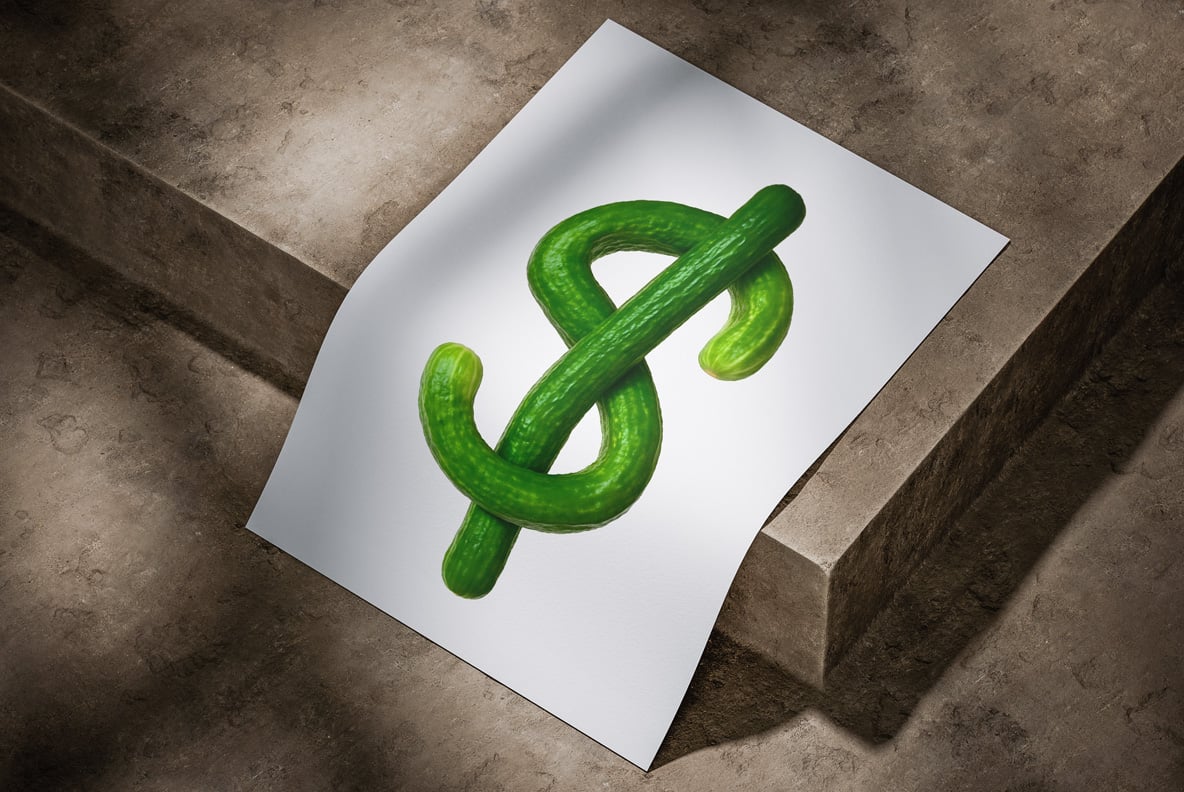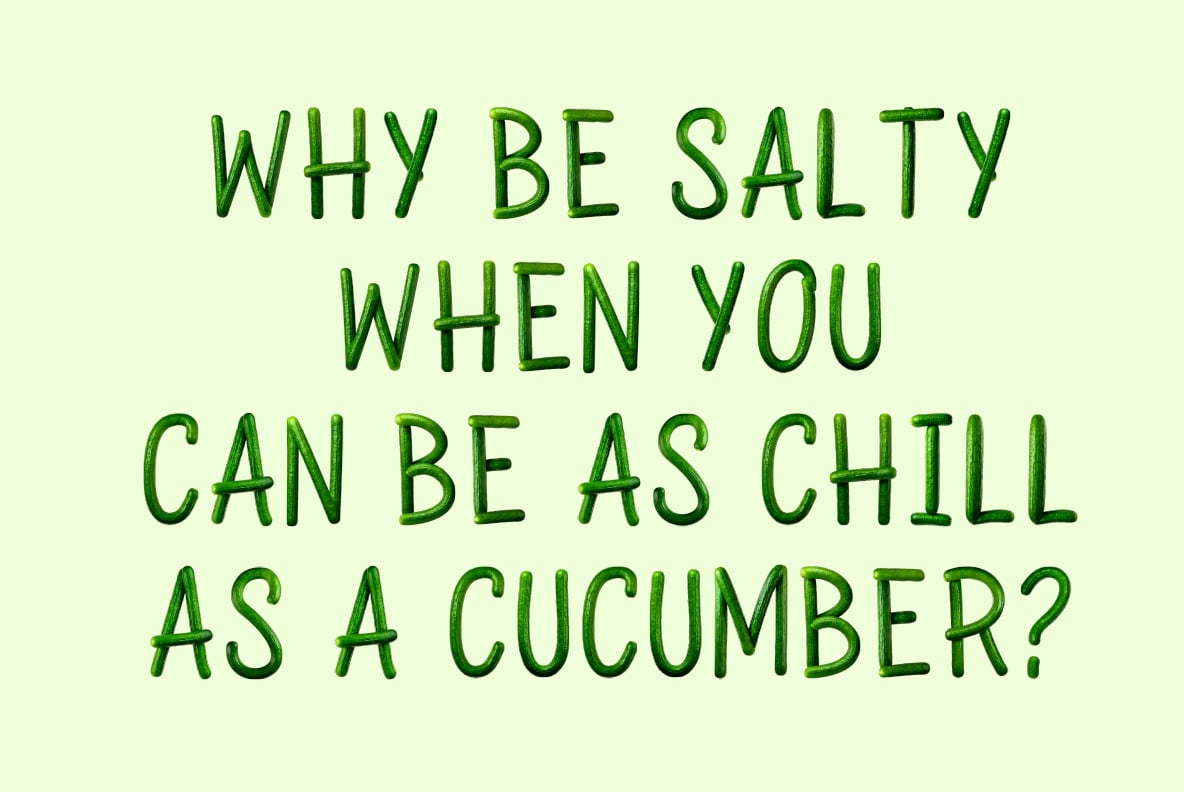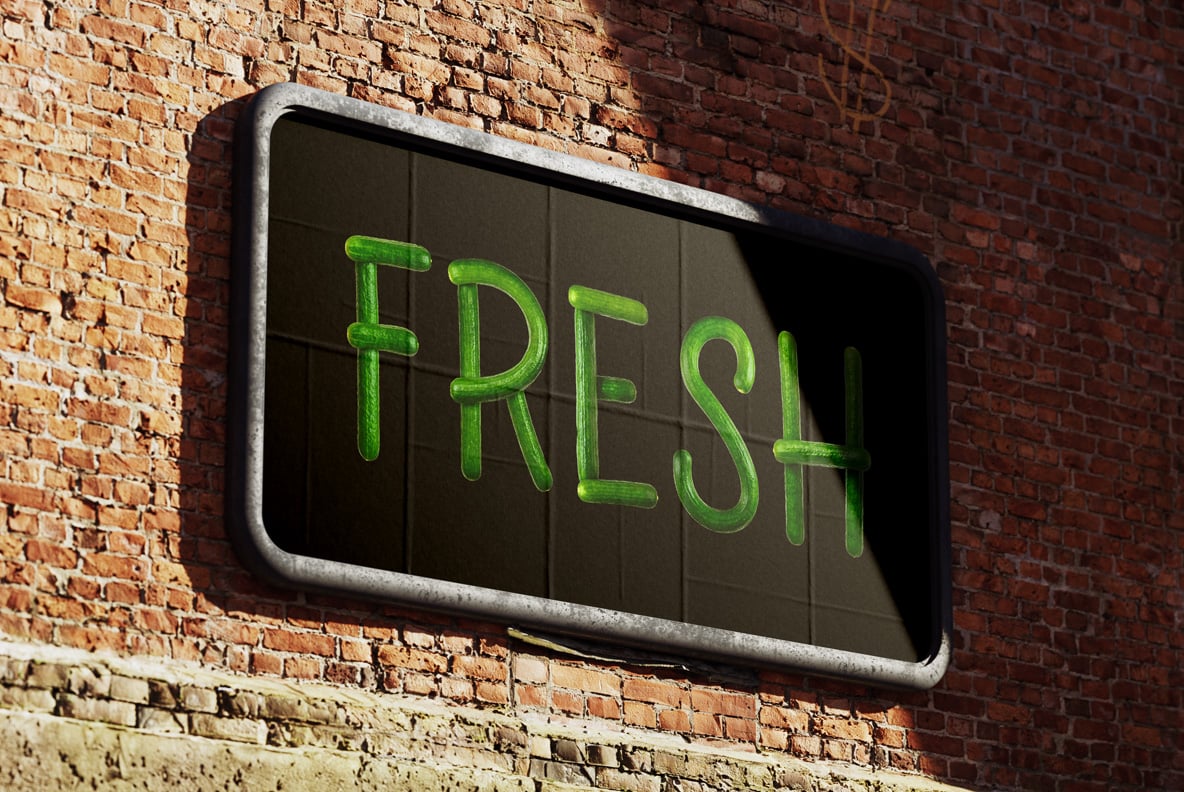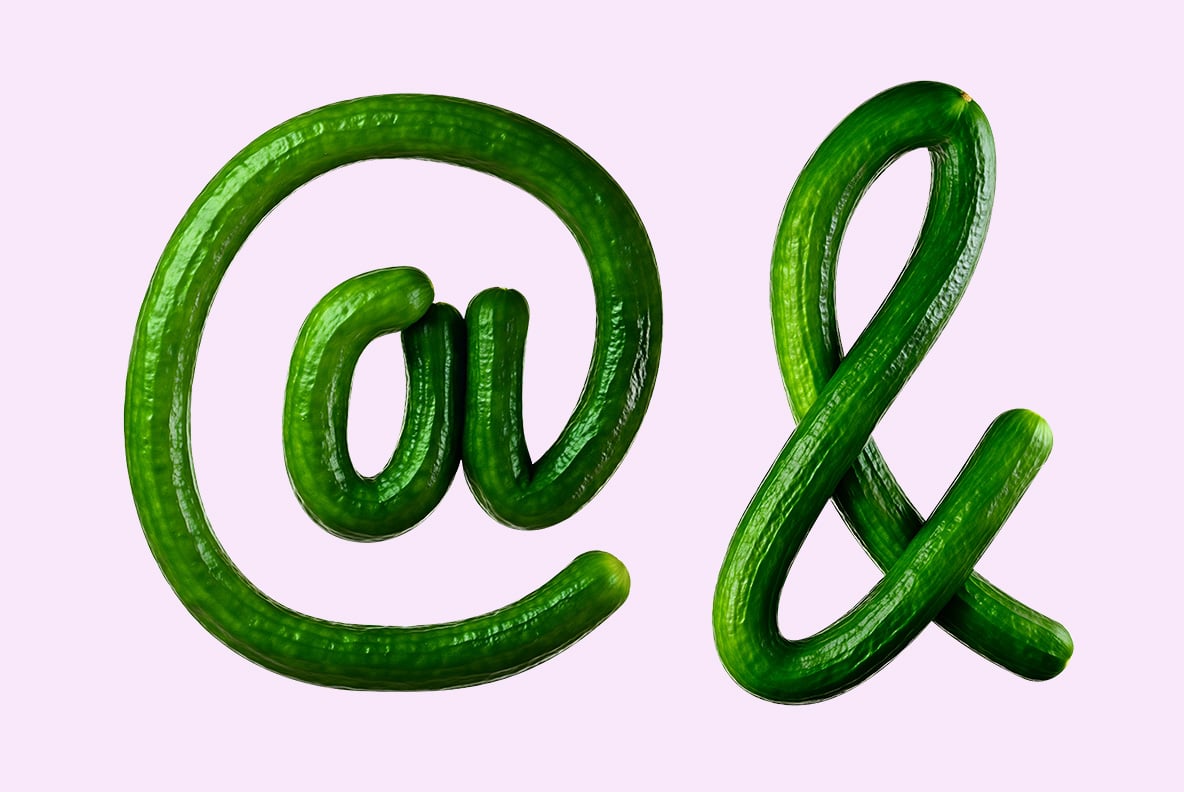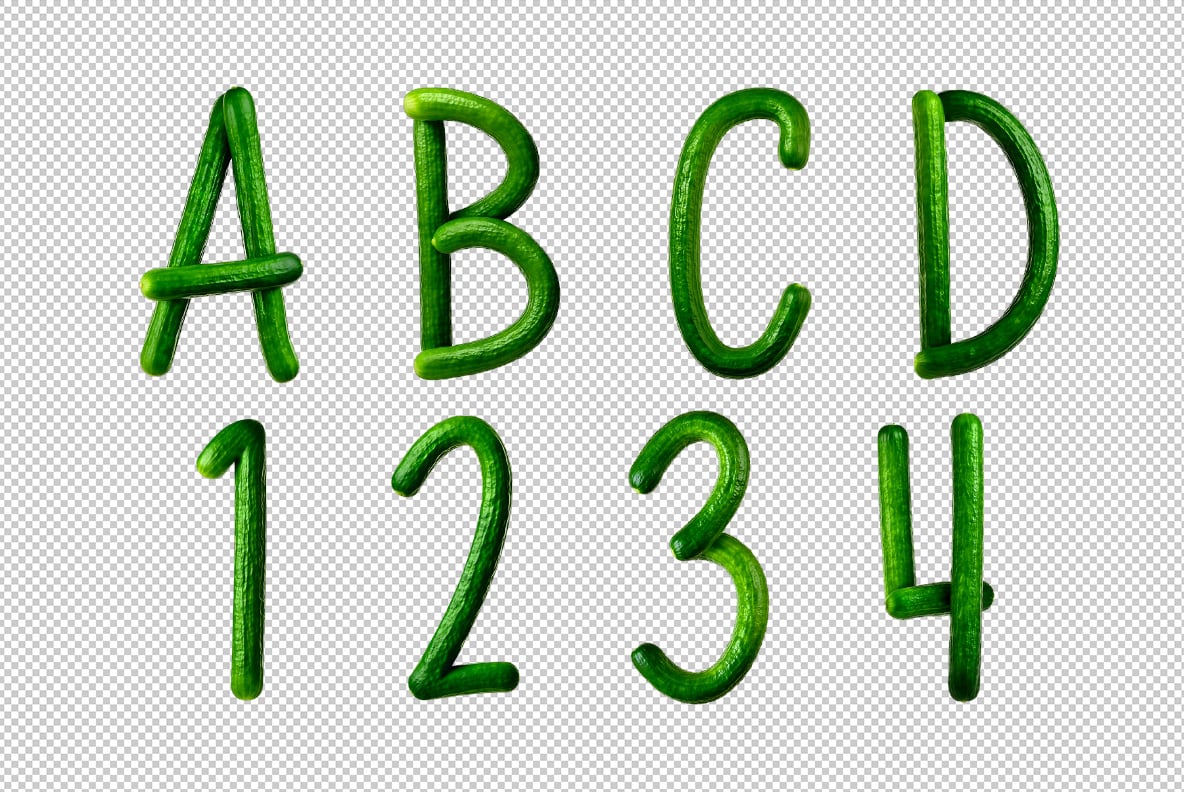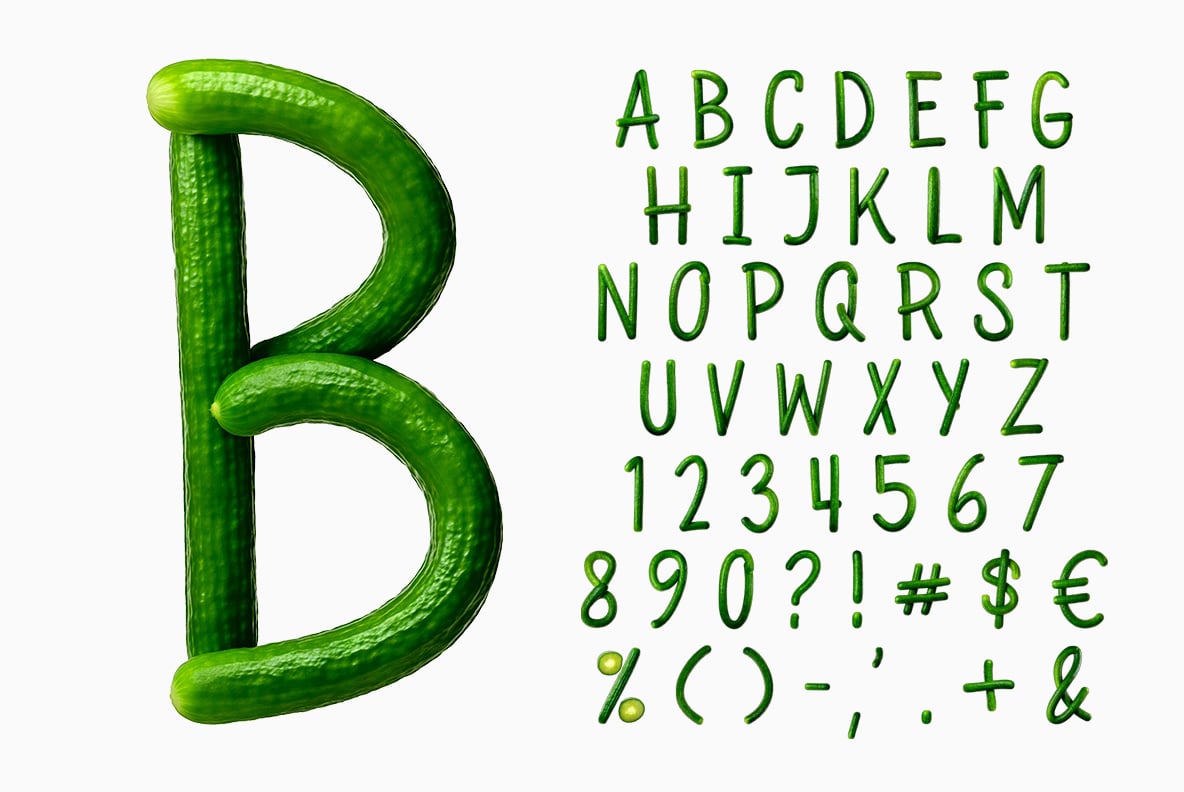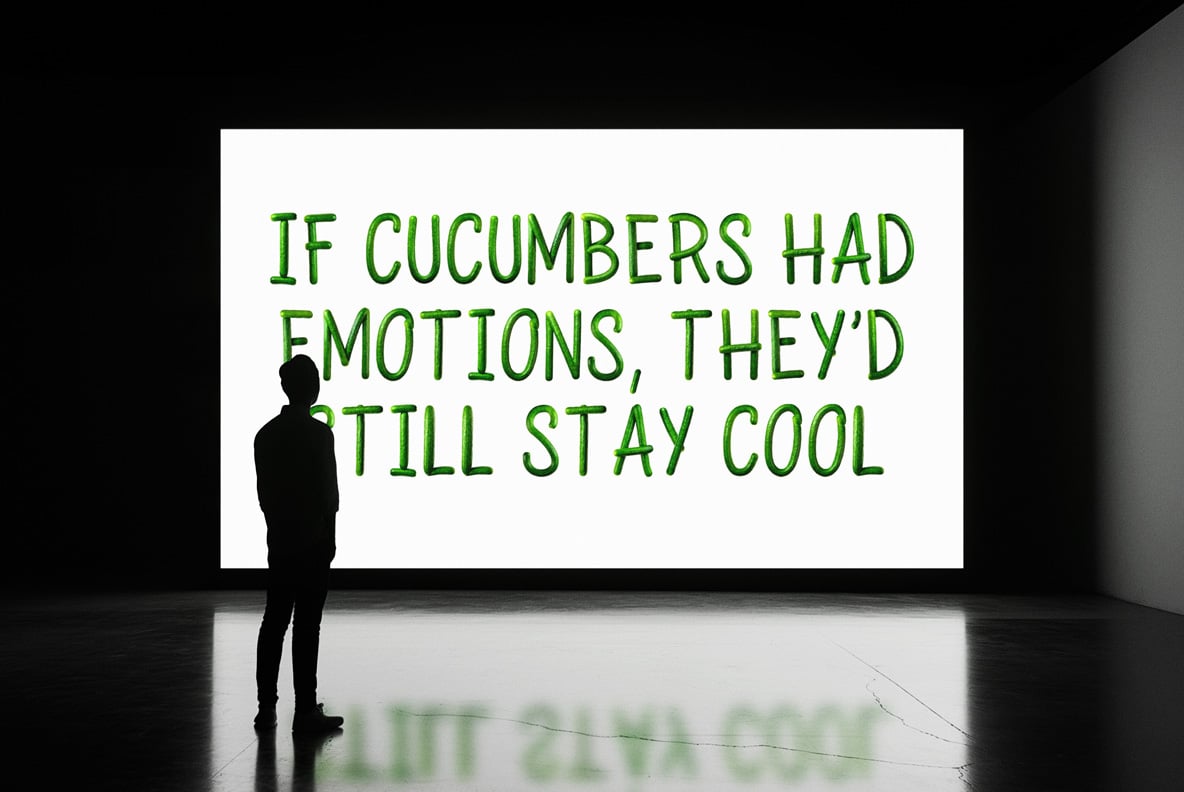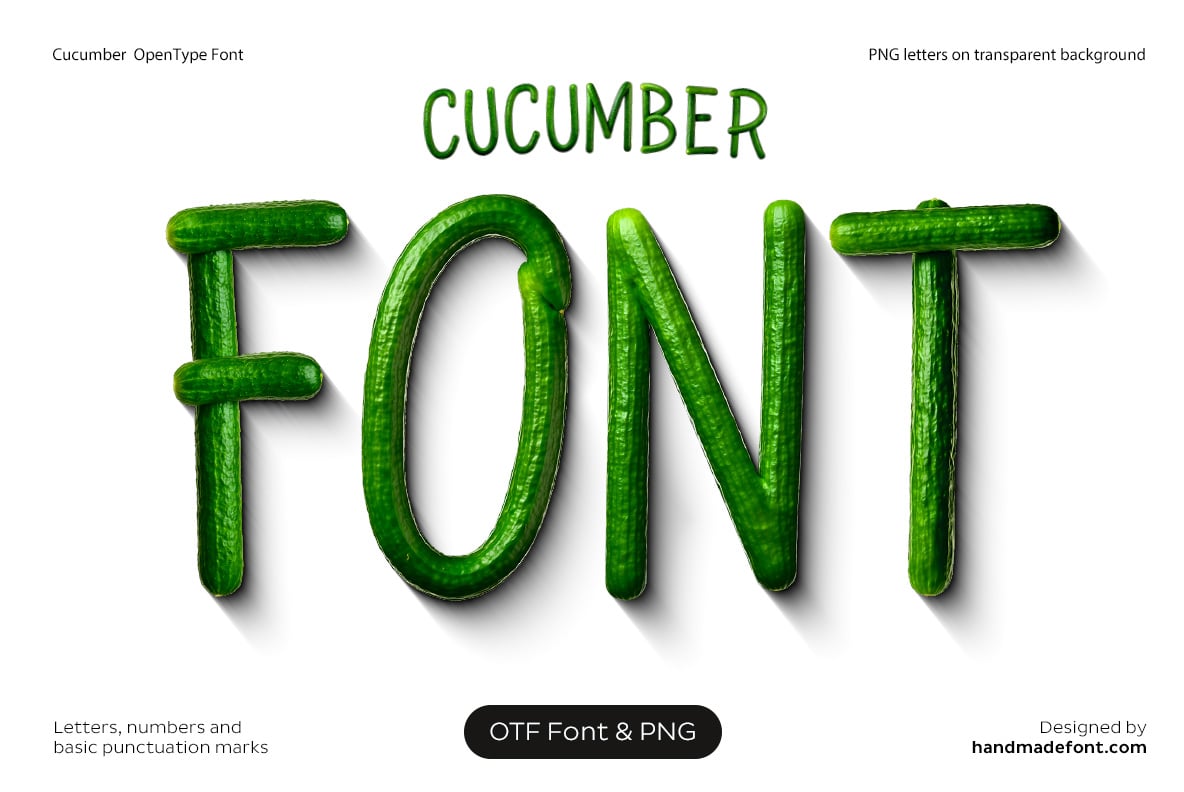
Cucumber Font
Big, bold, and refreshingly green, the Cucumber Font is a playful and unique typeface where each letter is crafted to look like it's made entirely of cucumbers. Perfect for projects that need a fresh, organic twist, this cucumber-inspired alphabet adds a touch of fun to your typography. Whether you're designing logos, posters, or social media content, the cucumber letters bring a quirky, natural vibe to any creative piece. The cucumber typography is ideal for food-related branding, eco-friendly campaigns, or playful designs that crave a splash of originality. Dive into this crisp and creative cucumber alphabet and give your lettering a vibrant, garden-fresh charm that’s sure to stand out!
A high definition OpenType Font. Contains uppercase characters, numerals and basic punctuation. (Draw height roughly 800 pixels). All letters and glyphs that comprises this font you can see on the preview.
Others : ! ? - . ' $ € % & #